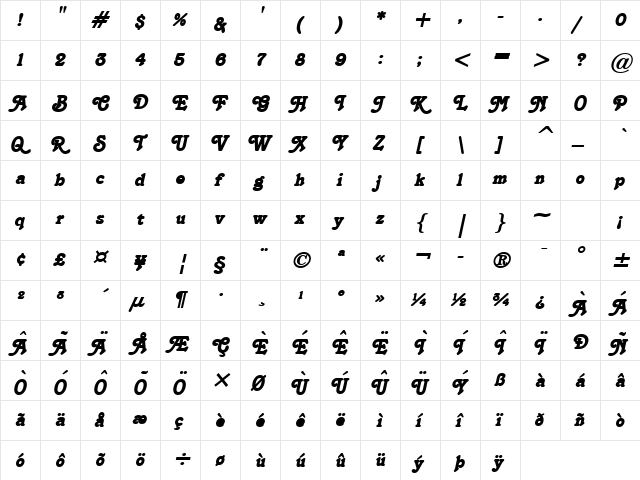
Terra BoldItalic
Design Context for Terra Typeface
Terra is a composed and adaptable typeface that performs quietly and consistently across a wide range of design contexts. The dynamic lean of this cut emphasises speed and emphasis in any layout. The heavy weight commands attention and anchors typographic hierarchies.
Pro Tip: Use Terra for emphasis, pull quotes, and subheadings where its slanted energy can add rhythm to the layout.